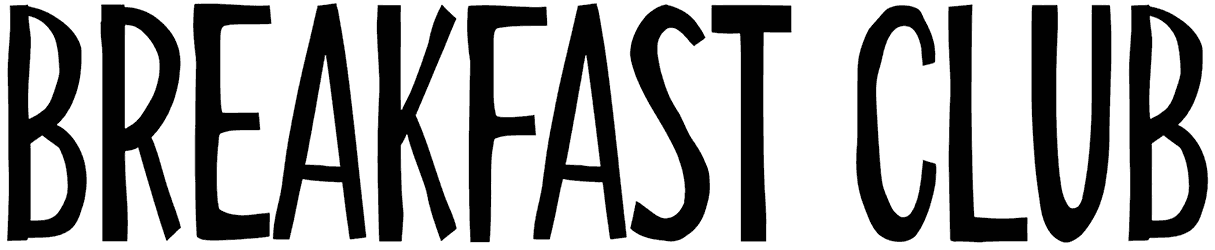
Breakfast Club Font
The name of this cartoon font is Breakfast Club, and it provides a lot of entertainment when it is used in text. This decorative font works wonderfully for a wide range of applications, from logos and headlines to branding and posters, among other things.